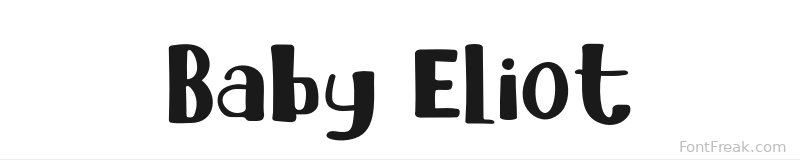
Baby Eliot
Introducing the Baby Eliot font by Syaf Rizal, a delightful display typeface that combines playfulness with an artistic flair. This font, classified as a decorative style, features rounded, soft edges that evoke a sense of warmth and friendliness. The stroke weight varies, creating a charming contrast that enhances its whimsical appeal. The slightly uneven spacing adds to its handcrafted feel, making it perfect for projects where a personal touch is desired.
The Baby Eliot font is versatile and can be utilized in various creative applications. It is ideal for designing children’s book covers, where its playful nature captivates young readers. Additionally, it works beautifully for birthday invitations, providing a cheerful atmosphere for celebrations. Restaurant menus can also benefit from its unique character, lending a friendly vibe that invites diners to explore the offerings. Furthermore, graphic designers can use this font for social media graphics, grabbing attention while conveying a fun and engaging message.
Targeting graphic designers, small business owners, and content creators, Baby Eliot offers a refreshing alternative to conventional typefaces. Its unique personality allows users to connect more deeply with their audience, whether they are crafting promotional materials or personal projects.
What sets Baby Eliot apart is its distinctive blend of charm and functionality. The font stands out in a crowded market of typefaces, providing a perfect balance between artistic expression and practical usability. With the Baby Eliot font free download, you have the opportunity to elevate your designs and create lasting impressions. Embrace its playful spirit and let your creativity flourish with this enchanting typeface.